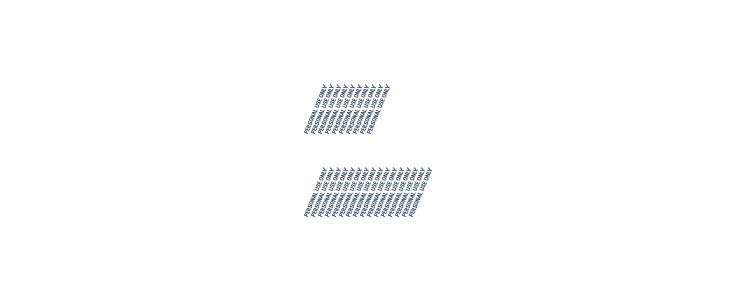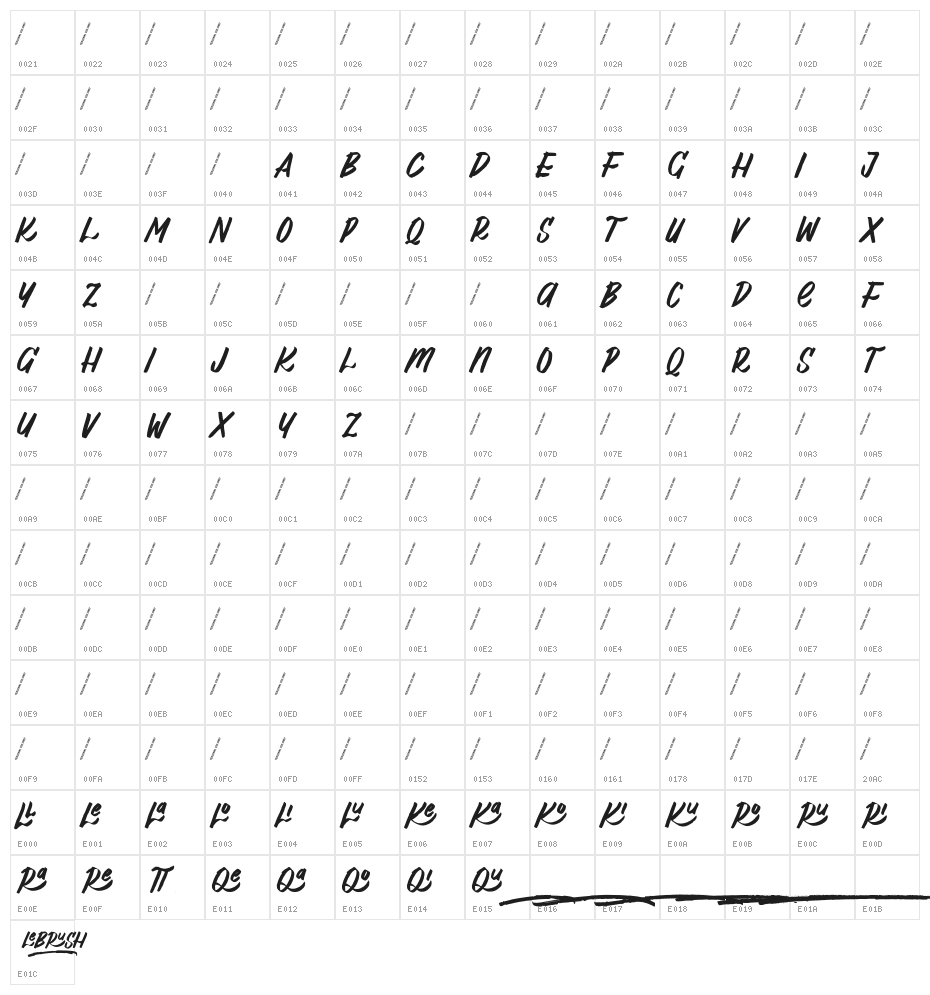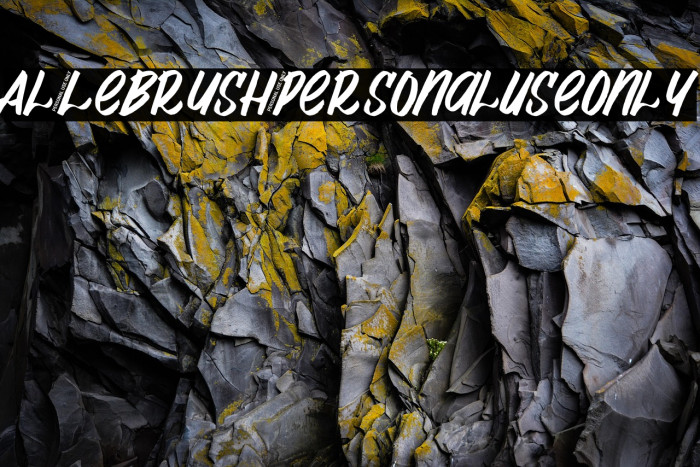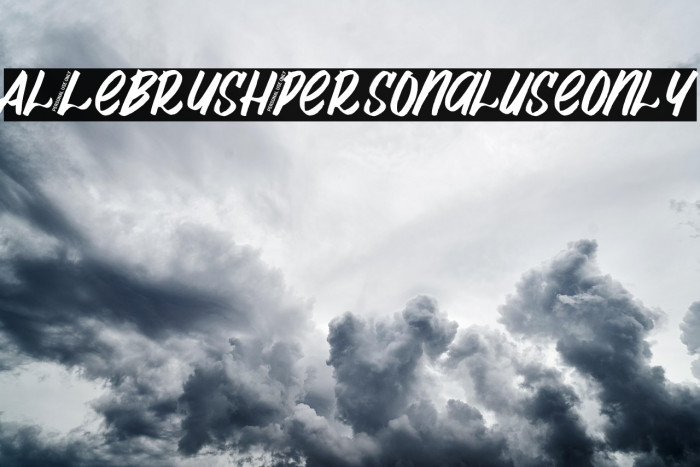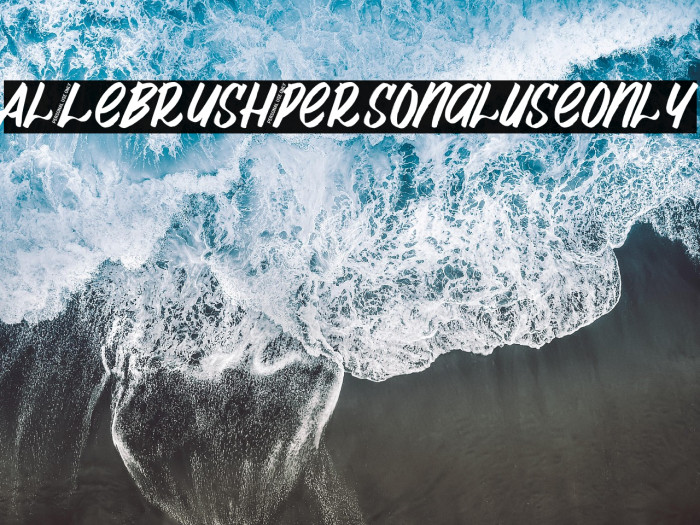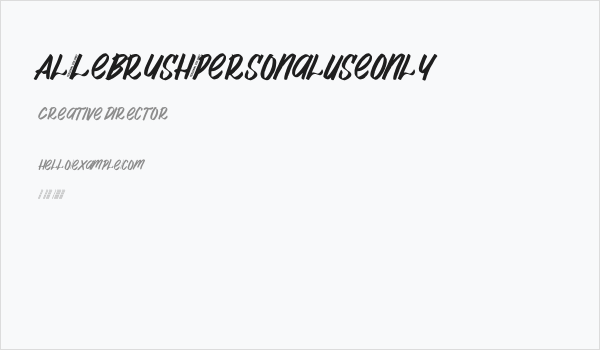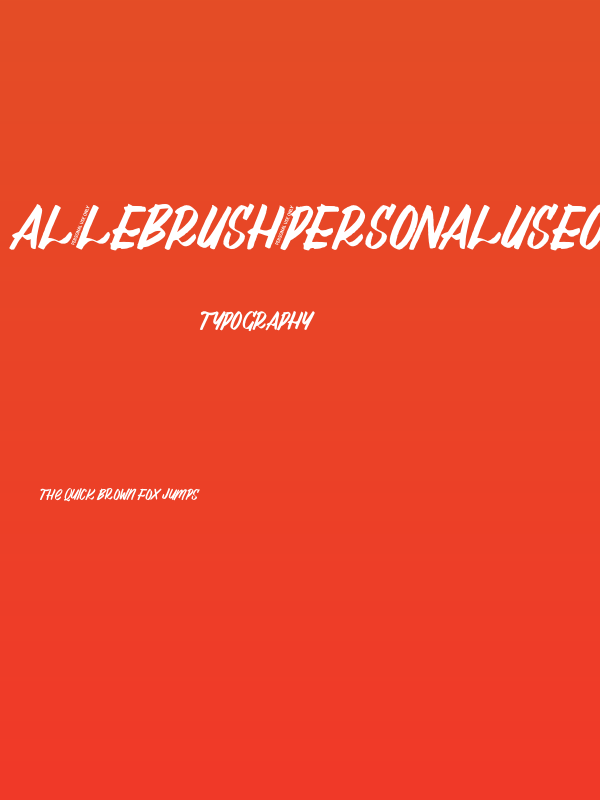
Al_Lebrush_PersonalUseOnly Font
Al_Lebrush_PersonalUseOnly Description
This font features a bold, brush-like script style that exudes energy and dynamism. The strokes are thick and expressive, giving each character a sense of motion and fluidity. The uppercase and lowercase letters maintain a consistent style, with slightly exaggerated curves and angles that enhance the handwritten feel. The font's overall appearance is both modern and artistic, making it suitable for creative and eye-catching designs. The spacing between characters is tight, which contributes to its cohesive and compact look. This font is ideal for projects that require a personal touch or a bold statement.